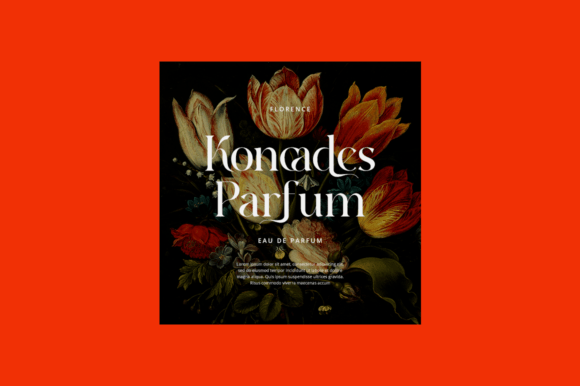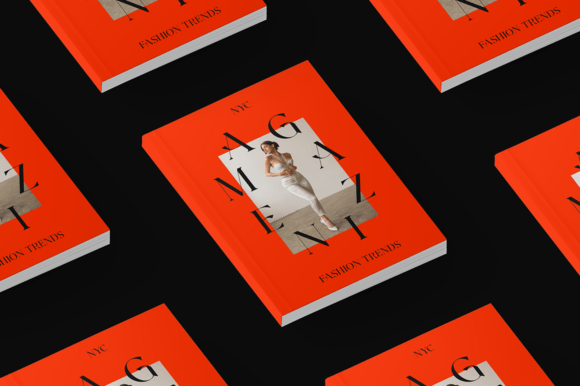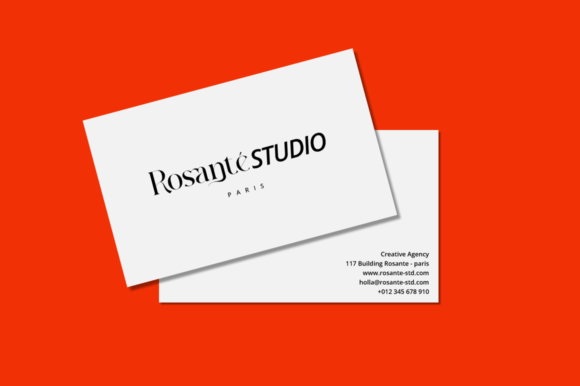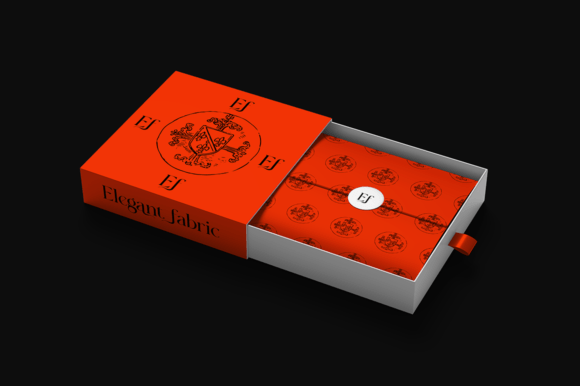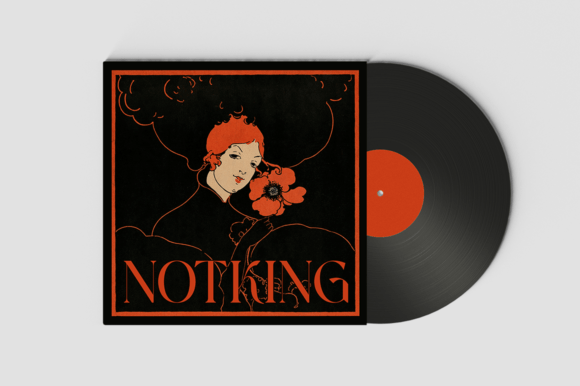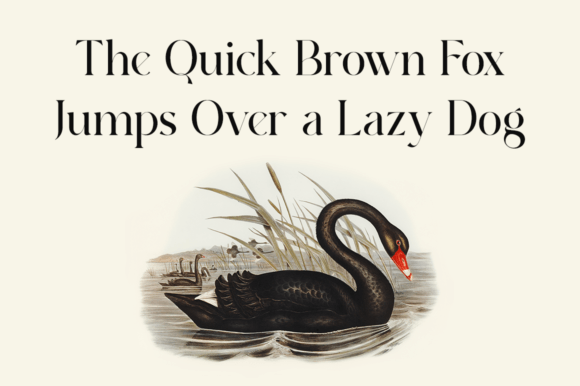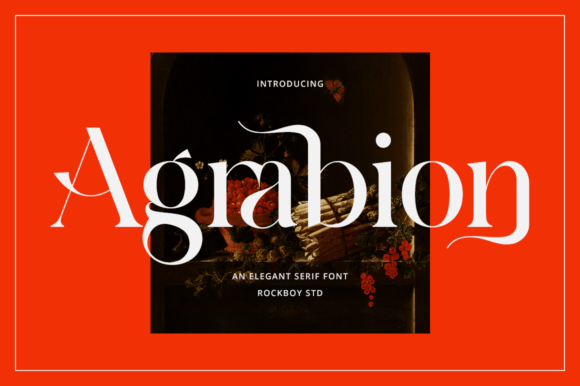
Introducing Agrabion Font: Elevate Your Designs with Elegance and Authenticity
In the world of typography, a font can make all the difference in bringing your creative vision to life. Agrabion Font is a stunning, serif font that embodies elegance, authenticity, and versatility. Designed to captivate and inspire, Agrabion has the potential to become your go-to font for a wide range of design projects. Whether you’re a seasoned designer or a crafty enthusiast, this exceptional font is sure to elevate your work to new heights.
Distinct Characteristics of Agrabion Font
Agrabion Font boasts a unique and refined aesthetic that sets it apart from other serif fonts. Its masterful design ensures that every letter, every word, and every sentence flows seamlessly, exuding a sense of sophistication and refinement. The font’s classic serif features are perfectly balanced, creating a harmonious visual experience that will leave a lasting impression on your audience.
One of the standout features of Agrabion Font is its exceptional legibility. The carefully crafted letterforms ensure that your text remains clear and easy to read, even at smaller font sizes. This makes Agrabion an excellent choice for body text, headings, and titles, allowing you to maintain consistency and visual cohesion throughout your designs.
Endless Design Possibilities with Agrabion Font
Agrabion Font is an incredibly versatile design tool, suitable for a wide range of projects and applications. Whether you’re working on:
- Print publications, such as brochures, magazines, and books
- Digital content, including websites, blogs, and social media graphics
Agrabion Font is the perfect choice to add a touch of elegance and sophistication to your work. Its classic serif design ensures that your creations will stand the test of time, remaining timeless and relevant for years to come.
Why Choose Agrabion Font?
With so many fonts available, why choose Agrabion? Here are just a few compelling reasons:
- Elegant and authentic design: Agrabion Font boasts a unique, refined aesthetic that will elevate your designs and leave a lasting impression.
- Exceptional legibility: The font’s carefully crafted letterforms ensure that your text remains clear and easy to read, even at smaller font sizes.
- Versatility: Agrabion Font is suitable for a wide range of projects and applications, from logos and branding to print and digital content.
In conclusion, Agrabion Font is an exceptional design tool that offers a perfect blend of elegance, authenticity, and versatility. With its PUA encoding, exceptional legibility, and timeless design, Agrabion is the perfect choice for designers, crafters, and artists who demand the best. Unlock your creative potential with Agrabion Font and take your designs to new heights!